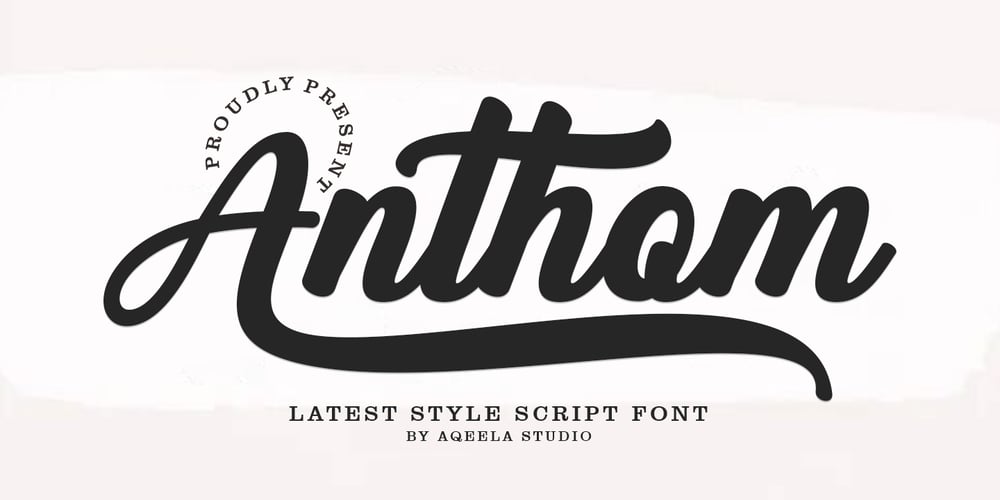
Anthom Font Family was designed by Muhammad Nasir and published by Aqeela Studio. Anthom contains 1 styles and family package options. Anthom is an enchanting handwritten font. This versatile script font has a wide spectrum of applications ranging from greeting cards to headlines and is guaranteed to add a romantic feel to your next project